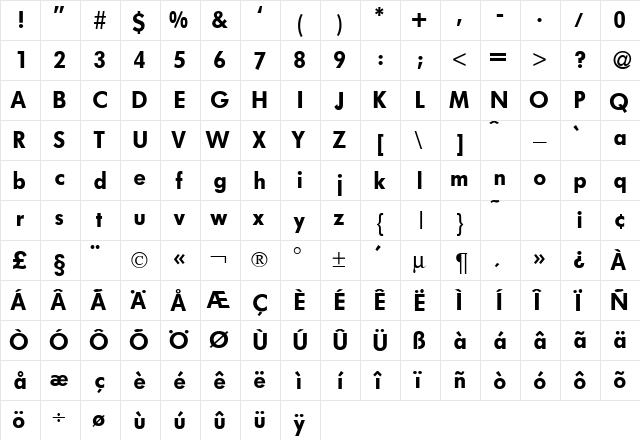
FutoralBlackDB Normal
Design Context for FutoralBlackDB Typeface
FutoralBlackDB takes a measured approach to typography — its balanced proportions and neutral character make it a reliable workhorse for both digital and print work.